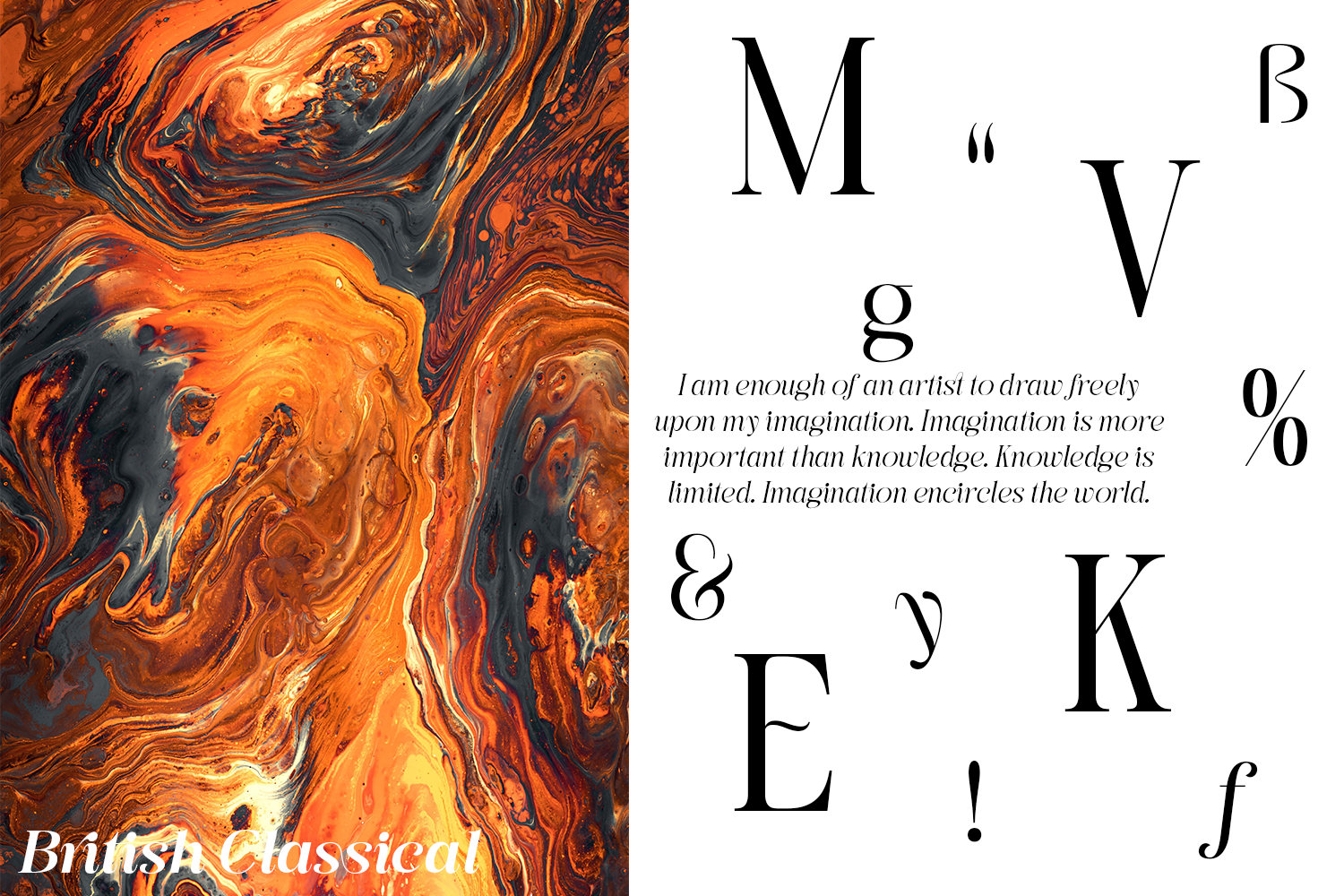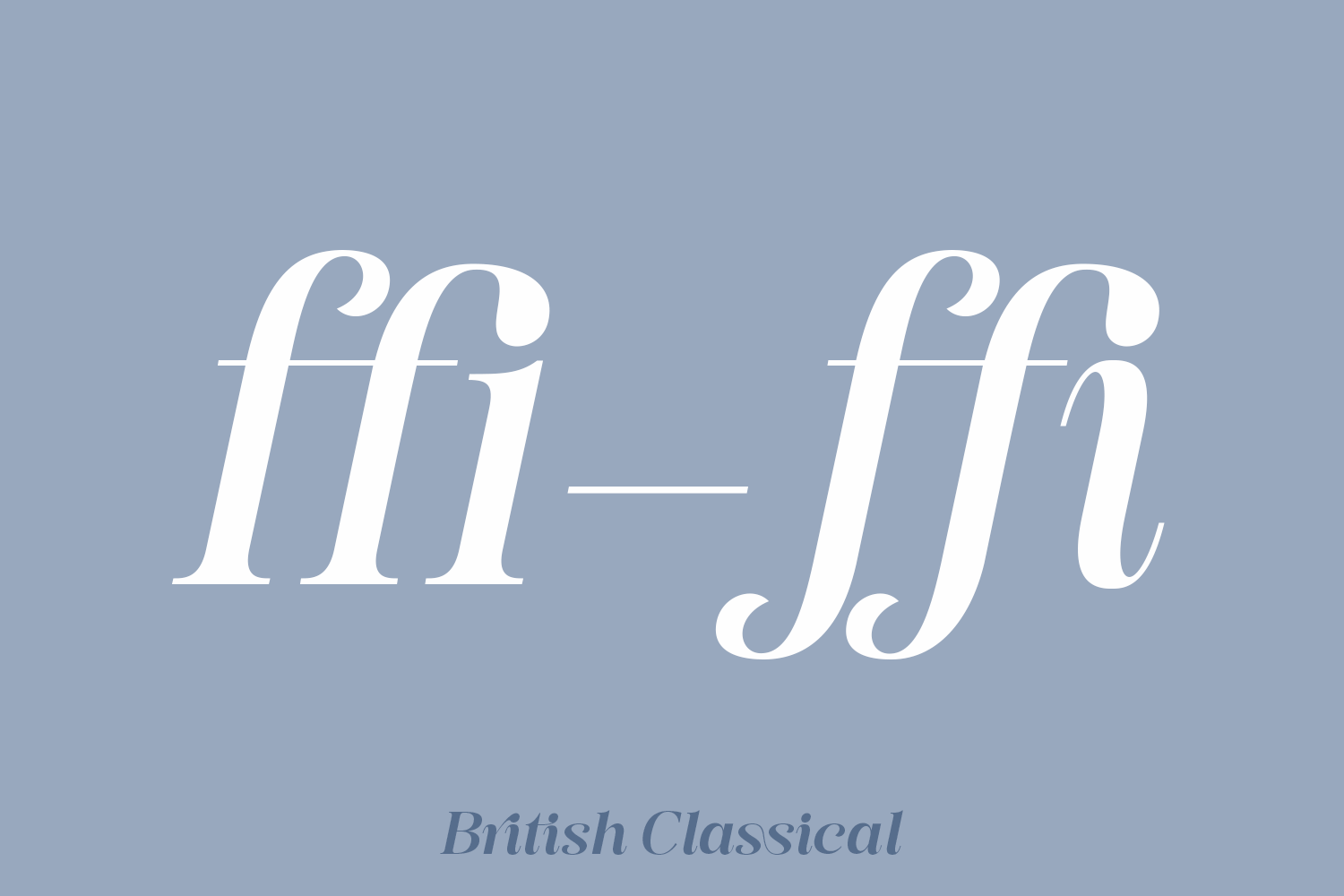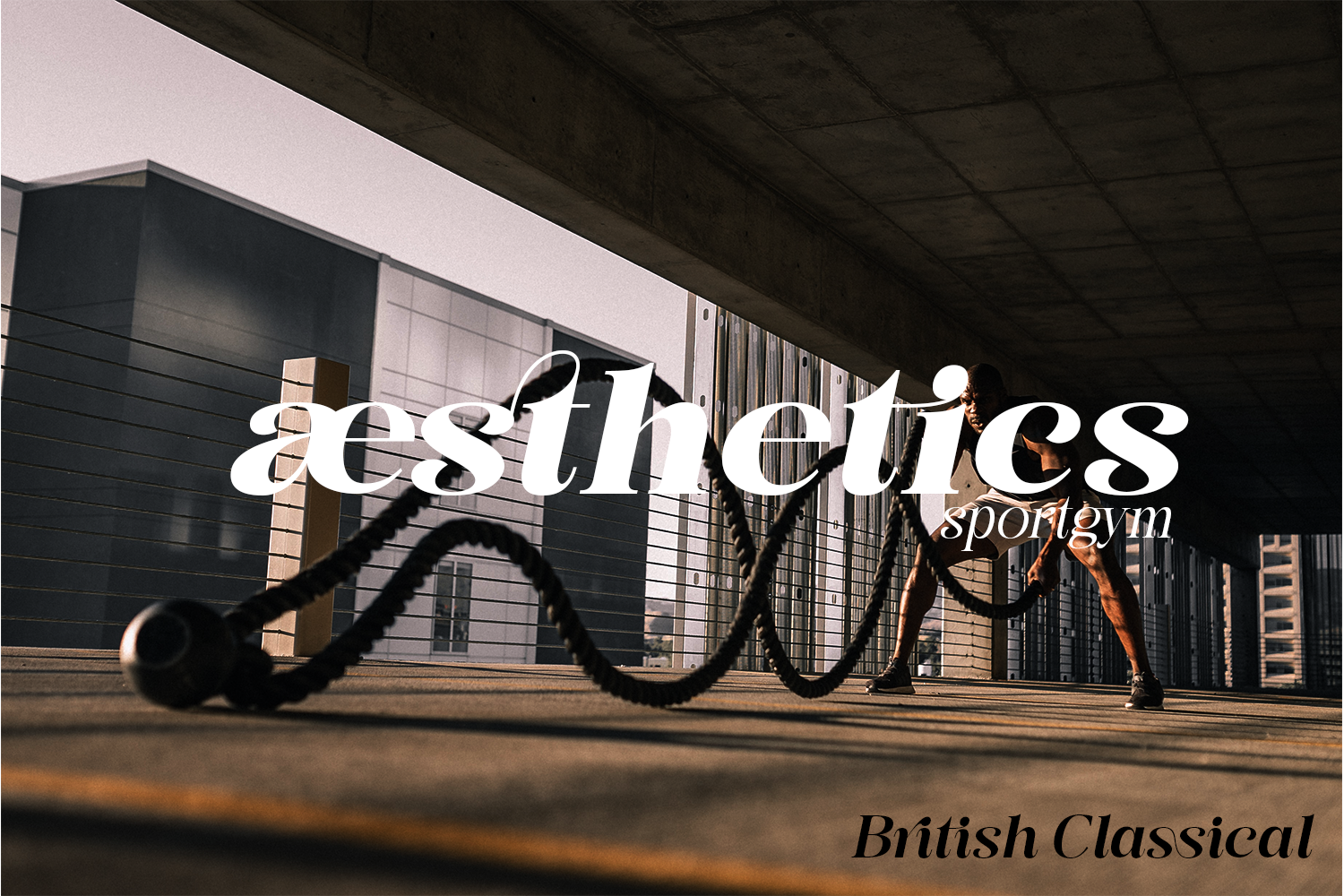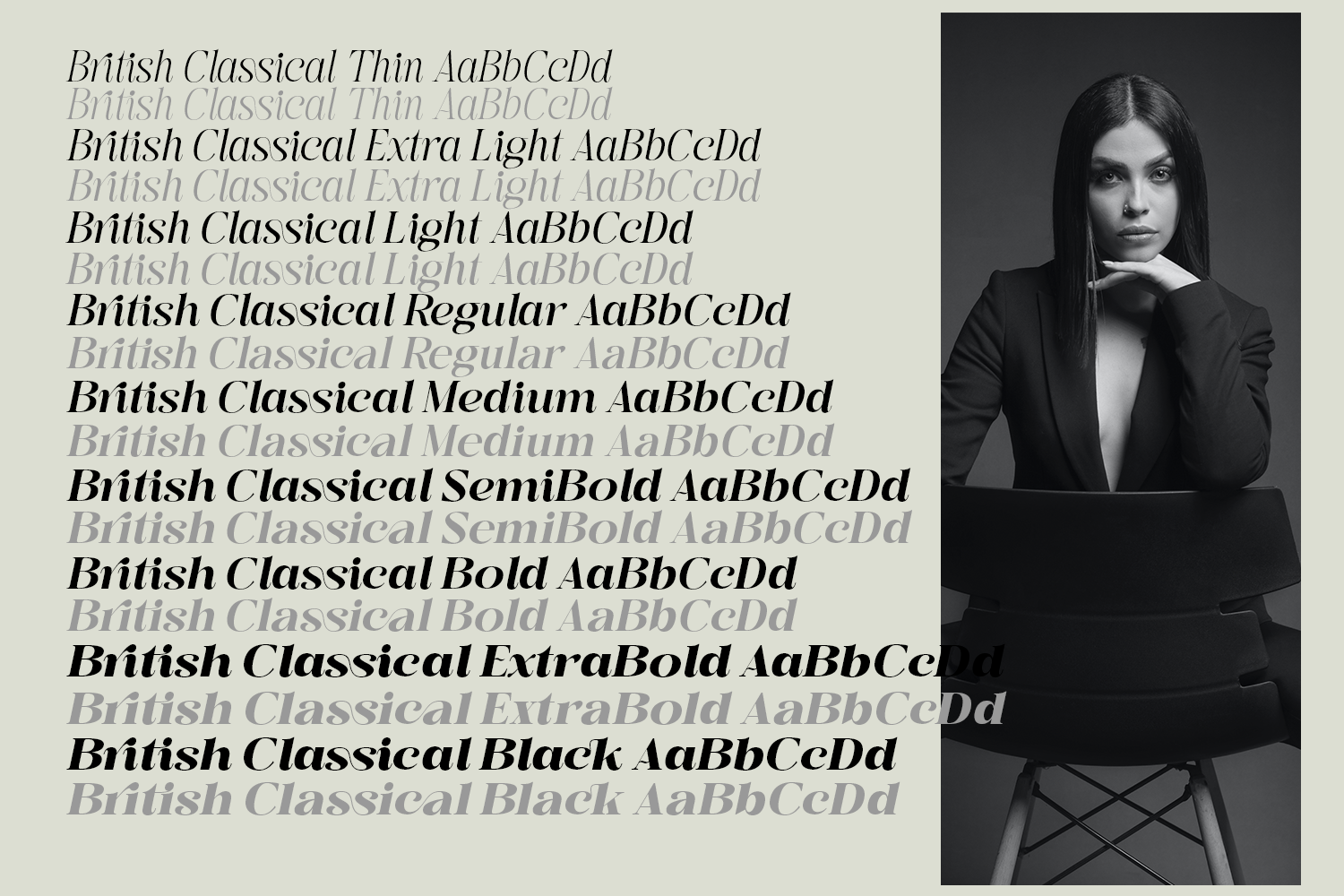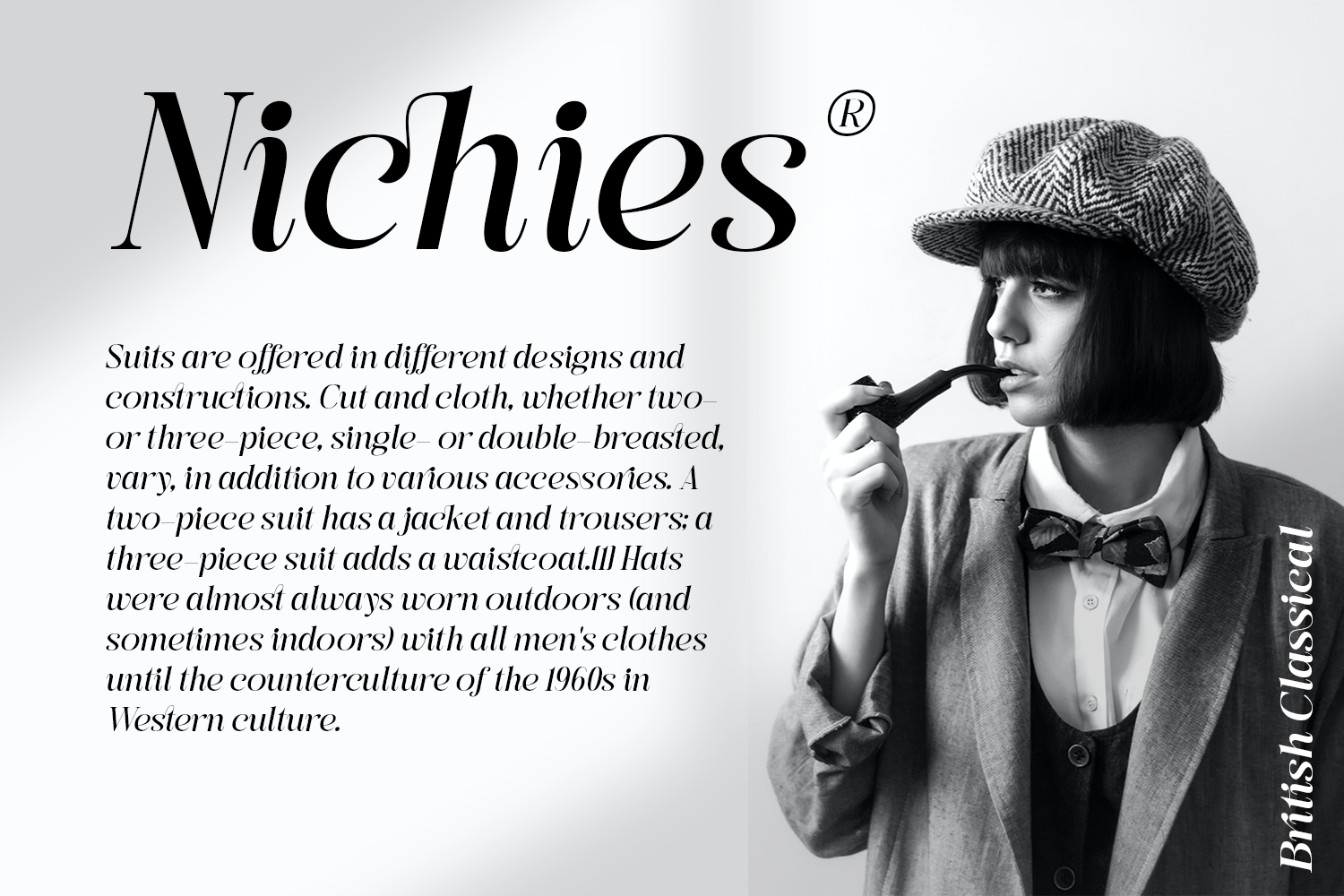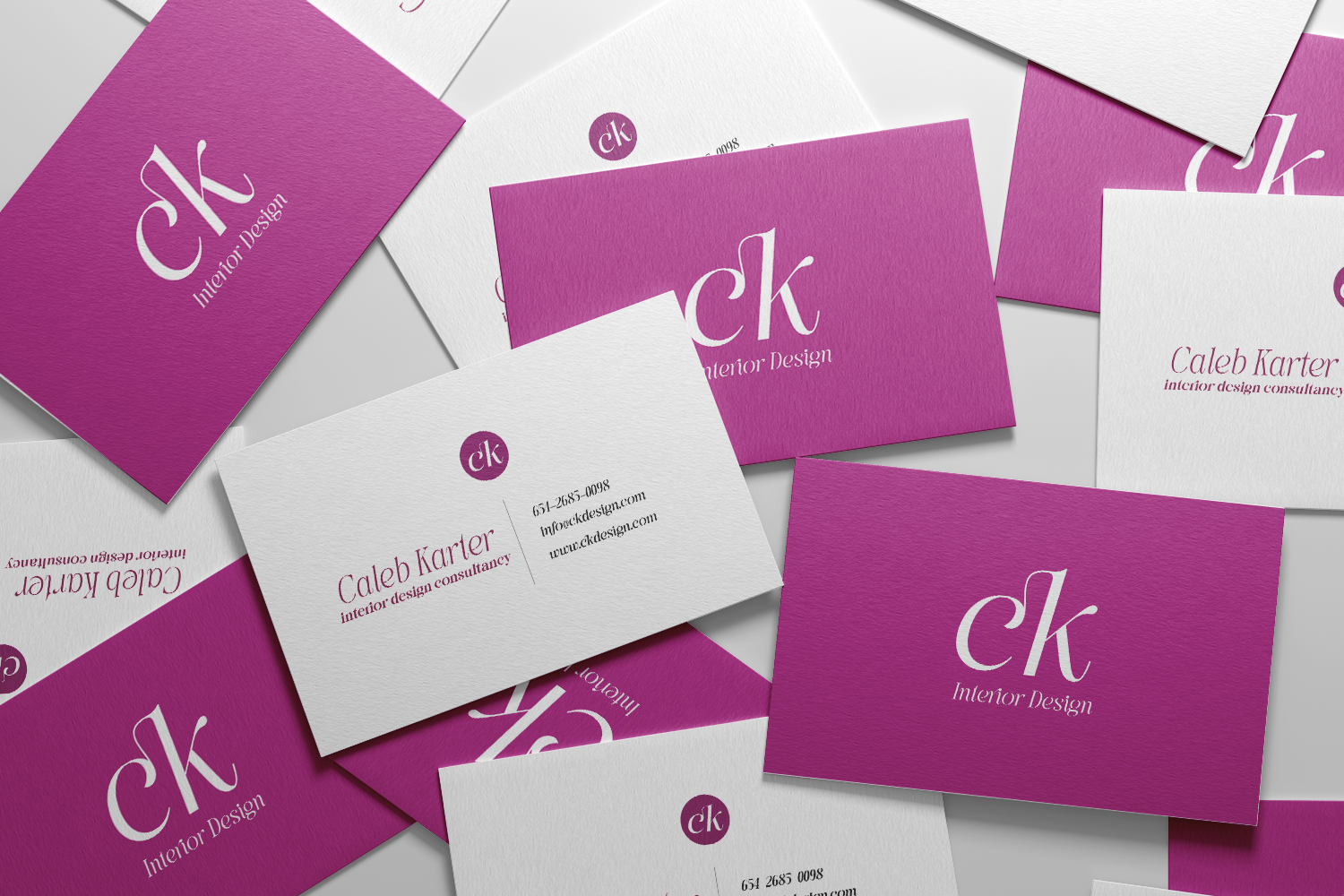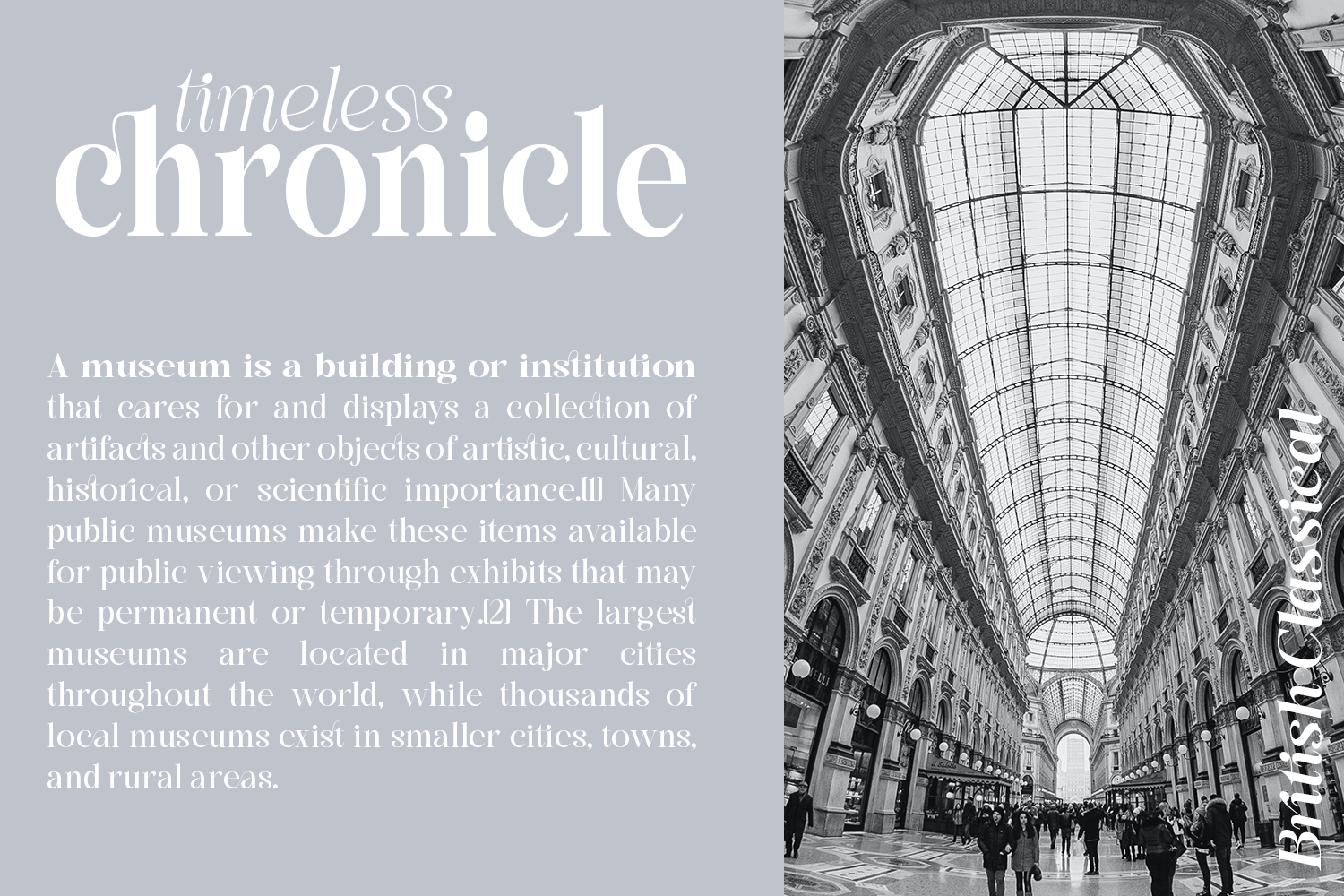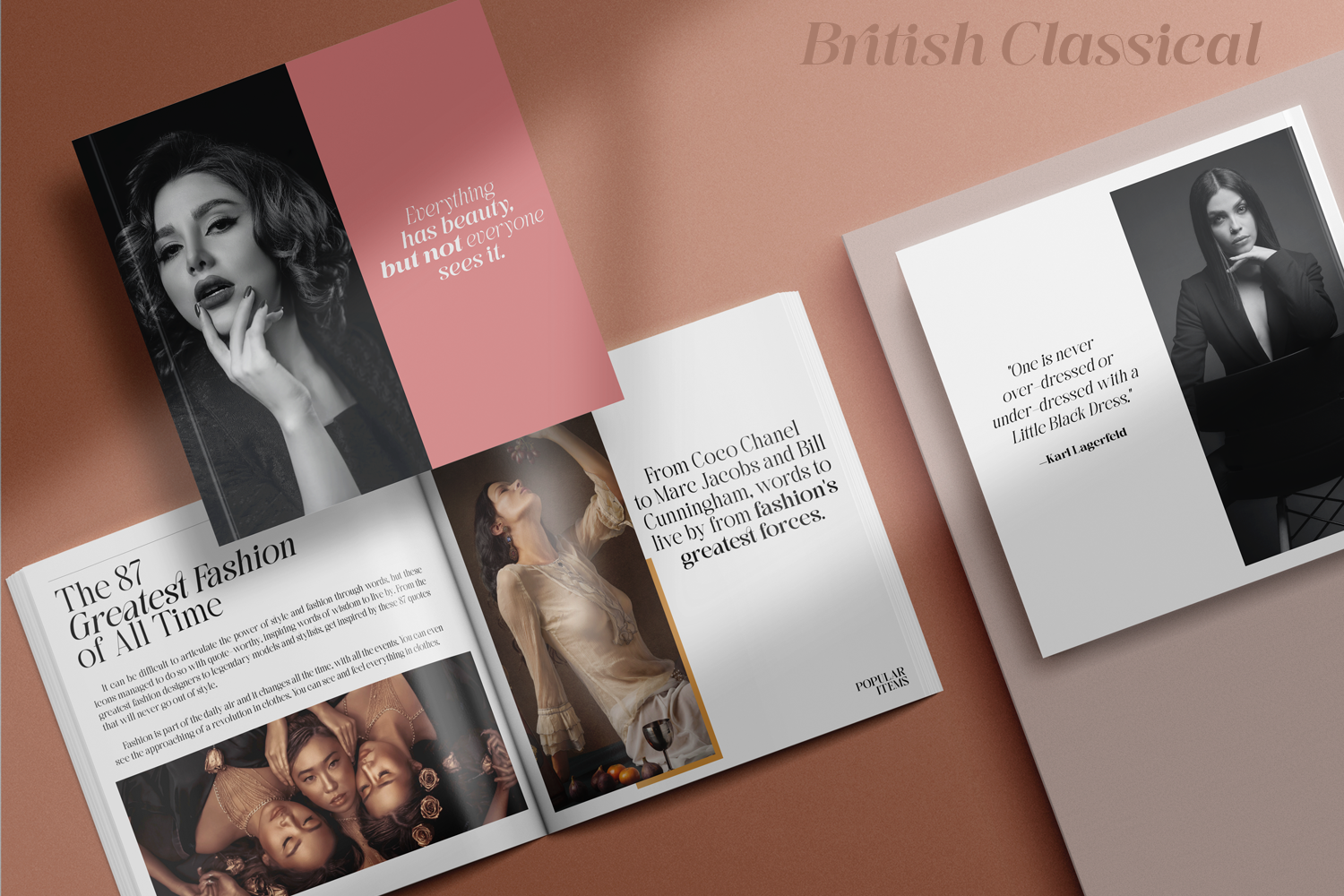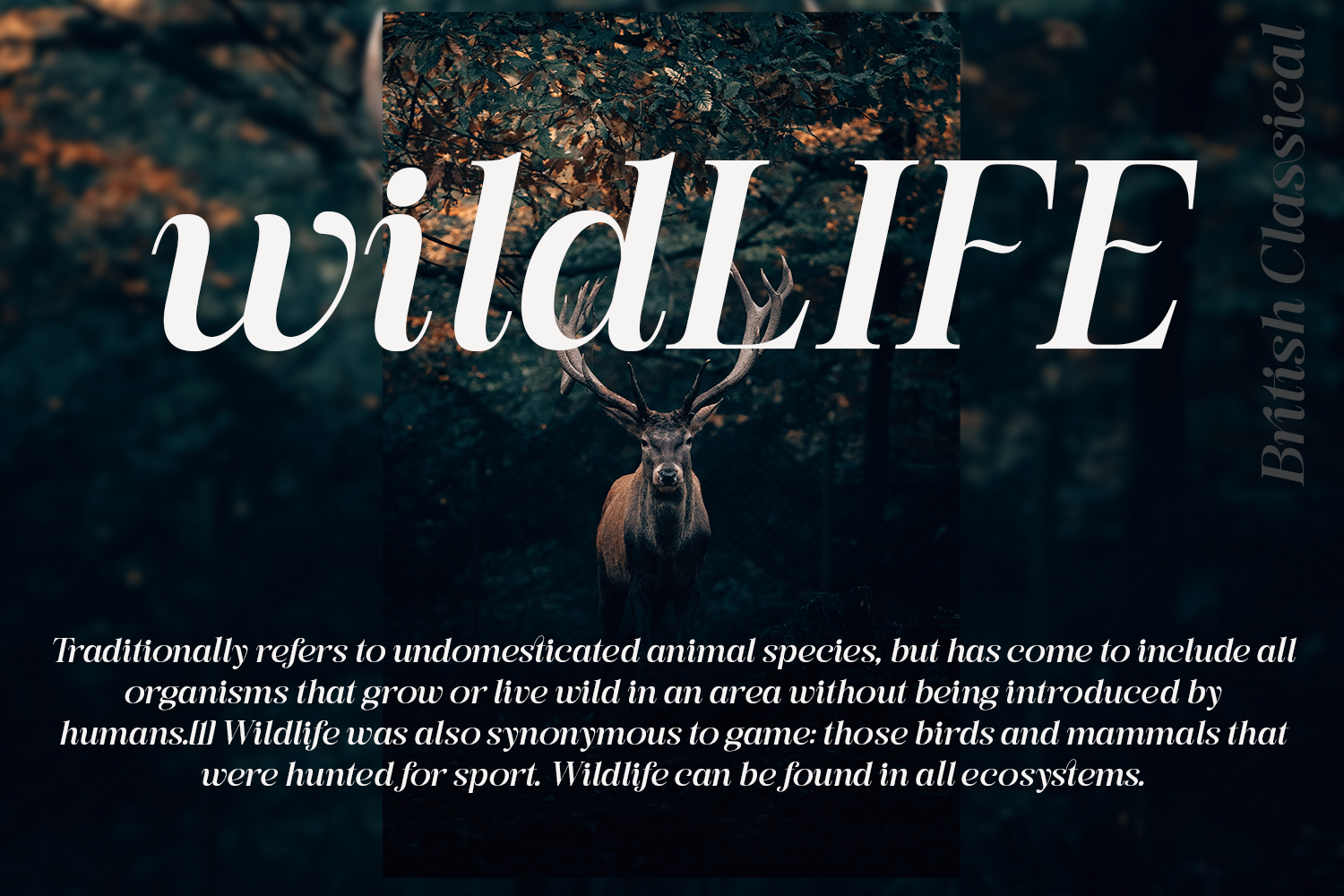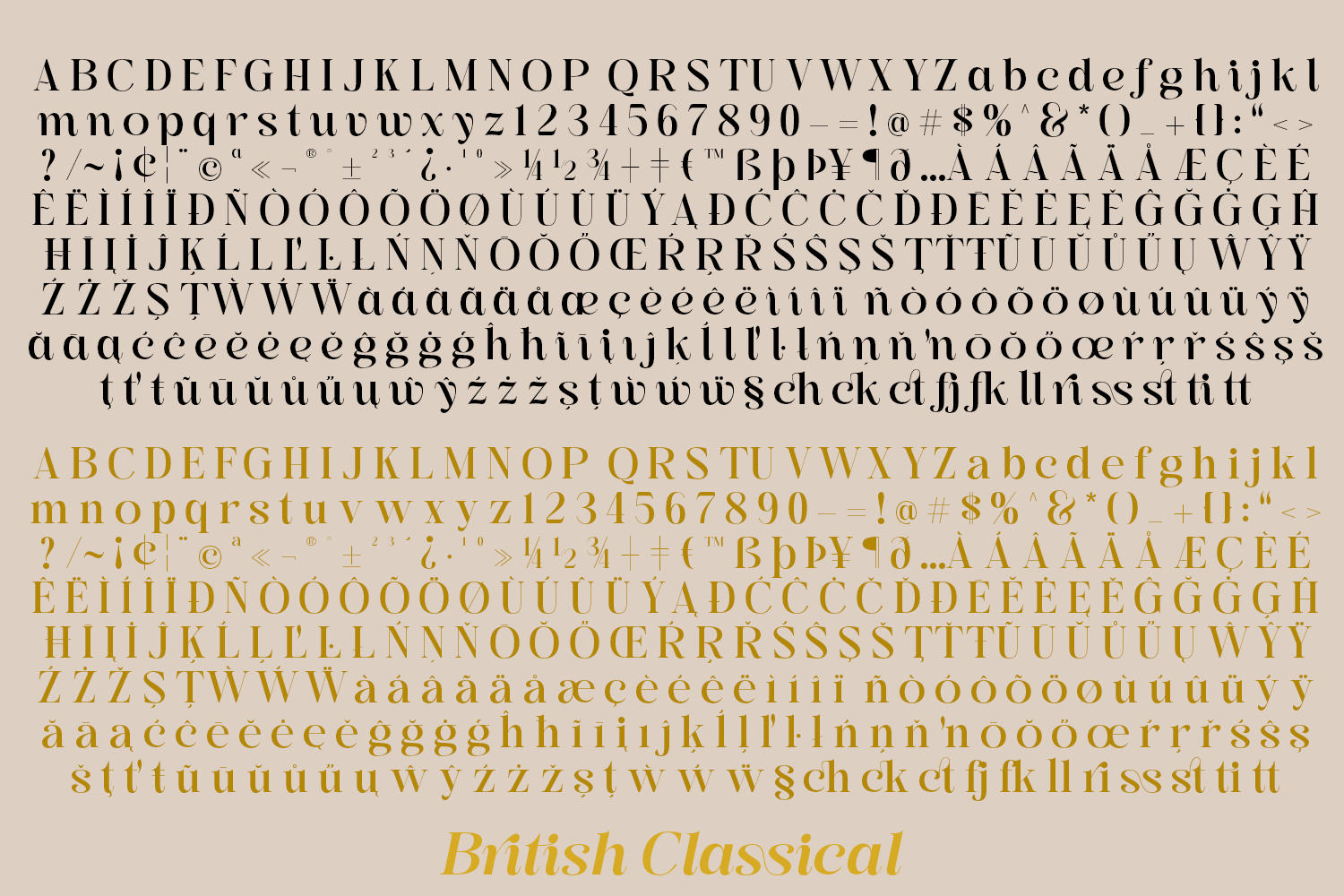
British Classical – Serif Family
British Classical and British Classical Neue is a Classic serif family. It’s clean and smooth with 9 variable weight combining the regular and italic and much alternative inside. Suitable to create any branding, product packaging, invitation, quotes, t-shirt, label, poster, logo etc.
• Uppercase & Lowercase
• Number & Symbol
• International Glyphs
• Multilingual support